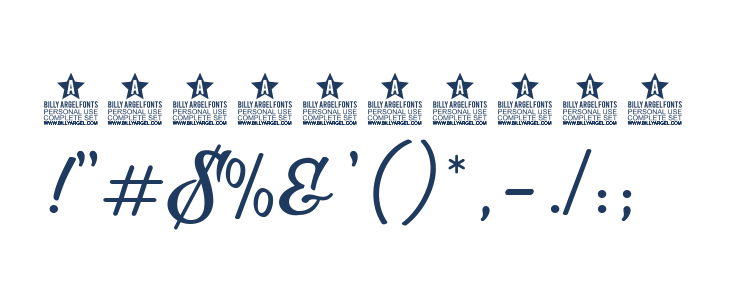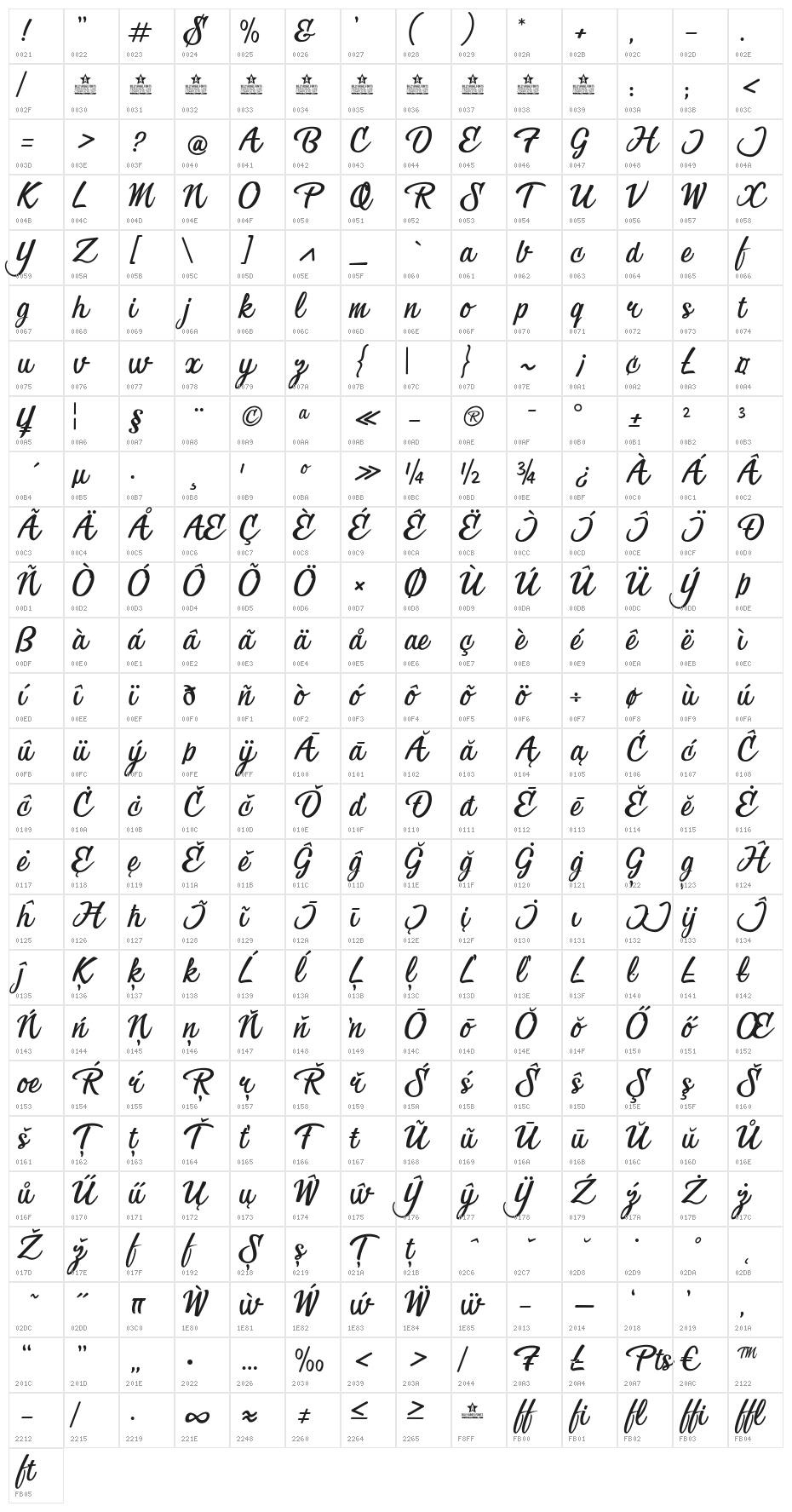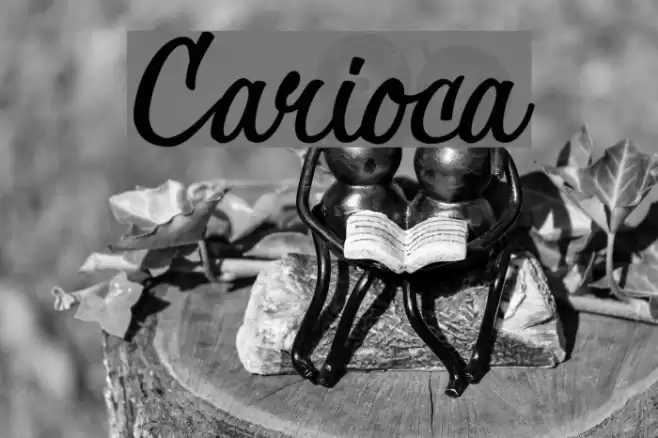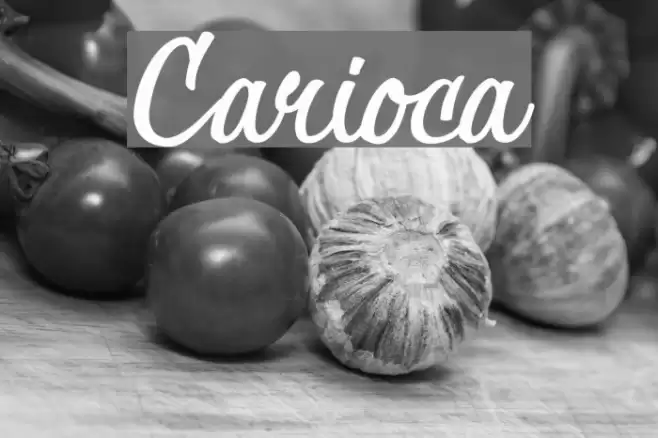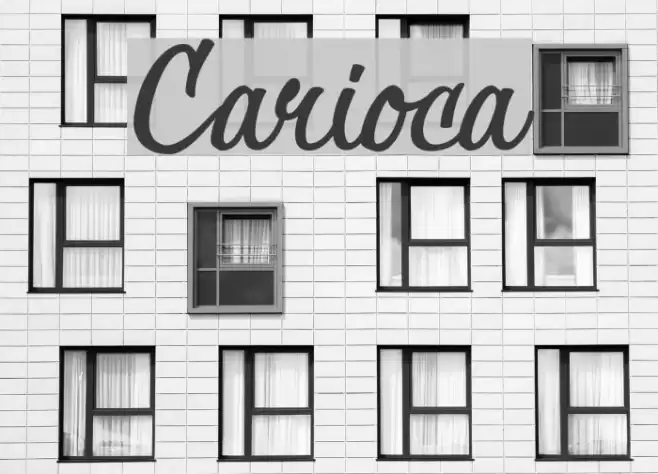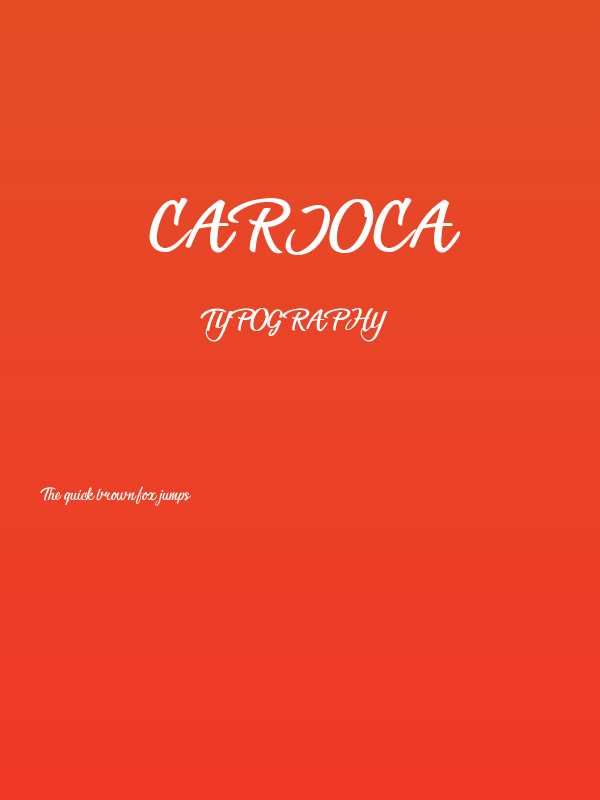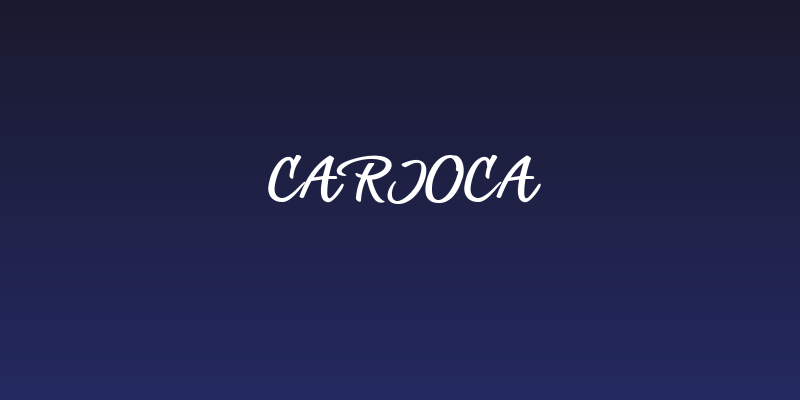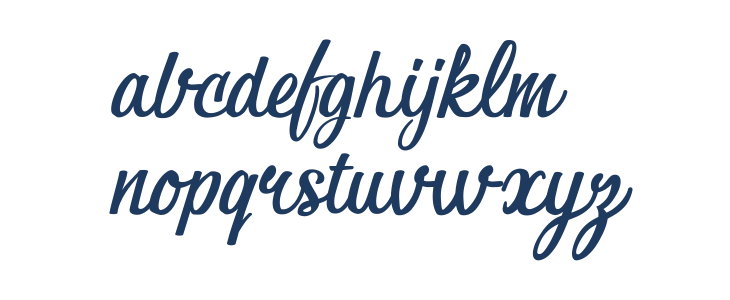
Carioca Font
Carioca Description
This font features a flowing, cursive style with elegant curves and smooth connections between letters. The uppercase letters are slightly more ornate, with sweeping lines that give a sense of movement and grace. The lowercase letters maintain a consistent flow, making it suitable for creating a cohesive and stylish look. The numerals and special characters are designed to match the overall aesthetic, ensuring versatility across different types of text. The font's design is reminiscent of handwritten scripts, offering a personal and artistic touch to any project.